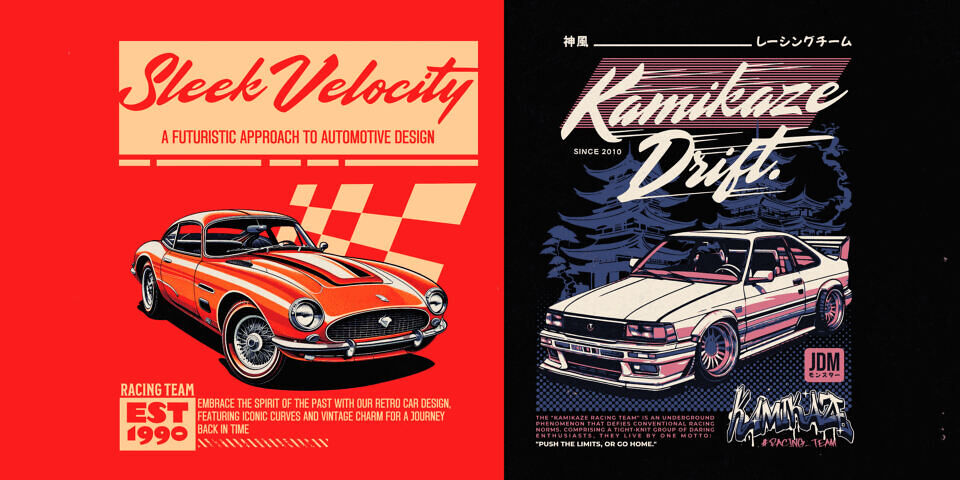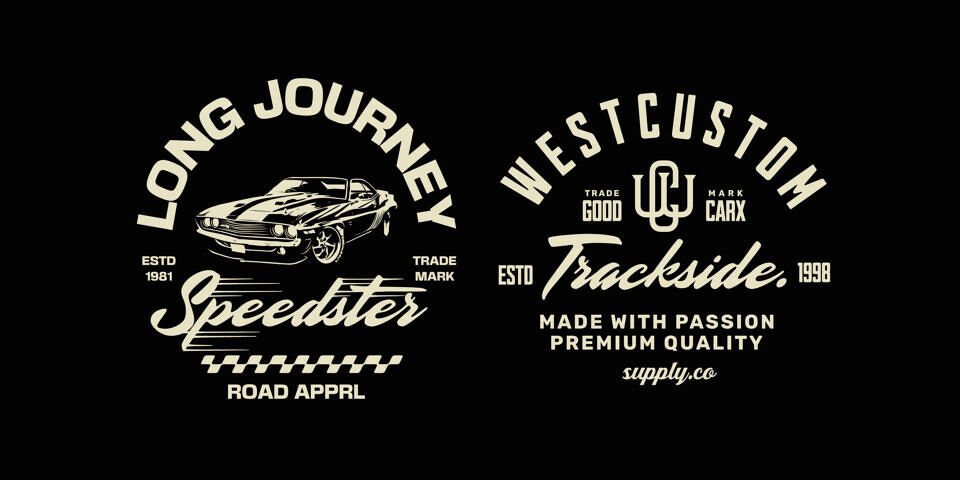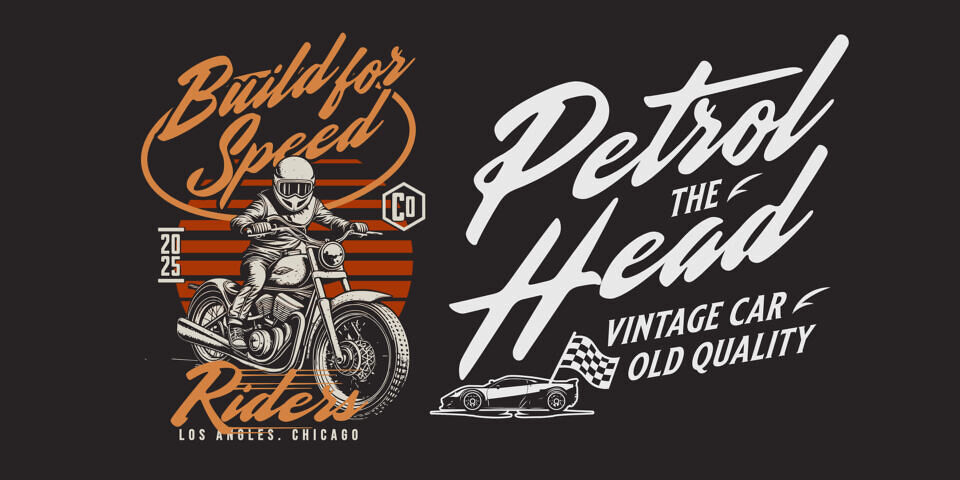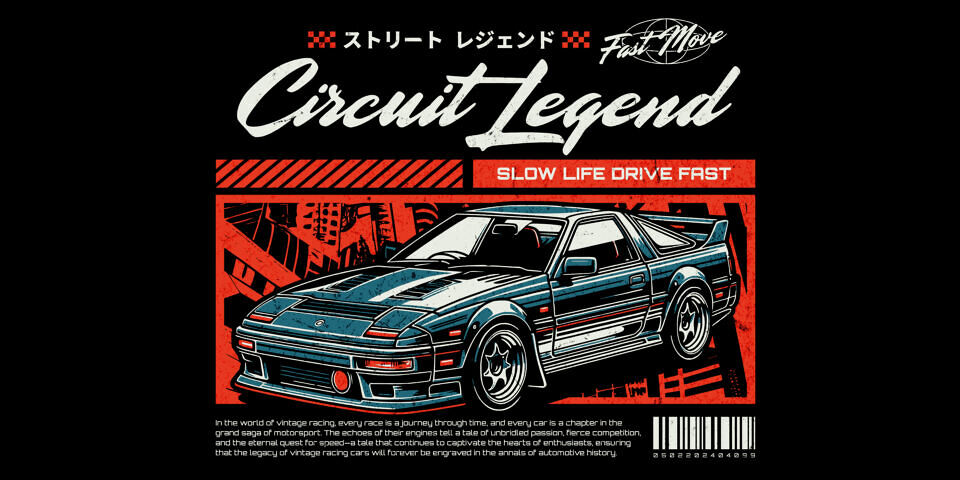
Highway Man Font
Highway Man is a high-speed script typeface with an intense, fast-moving style. Its bold strokes and slanted letters create a sense of momentum, making it perfect for themes of adventure and rebellion.
The unique horizontal motion lines running over the text makes it as if the characters are rushing forward on a highway. With nods to vintage automotive culture and classic racing aesthetics while being inherently progressive, Highway Man carries both a retro and modern appeal.
Designed by: Måns Grebäck